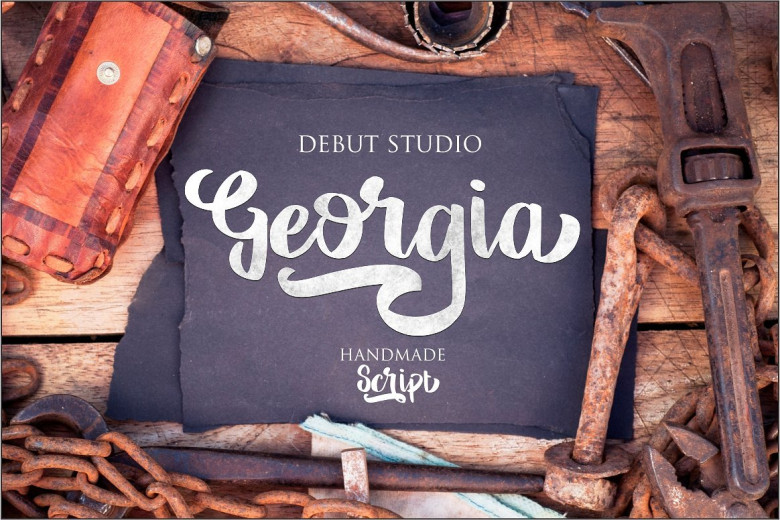
Georgia Script Font
We always want to introduce you the best typography, you please also support us. And here is a handmade script typeface. Introducing Georgia. Georgia was made by inspired by Retro and Vintage Design. Georgia Script comes with uppercase, lowercase, numerals, punctuations and so many variations on each characters include opentype alternates, common ligatures Tis font so Perfect to use for Letterhead, Logotype, Poster, Apparel Design, Label and etc.